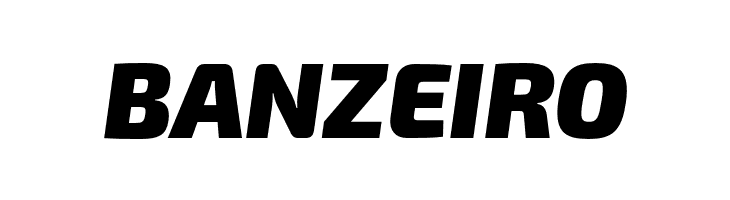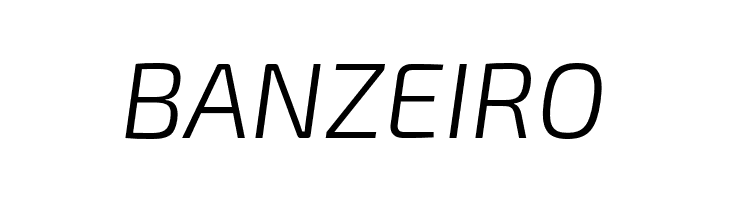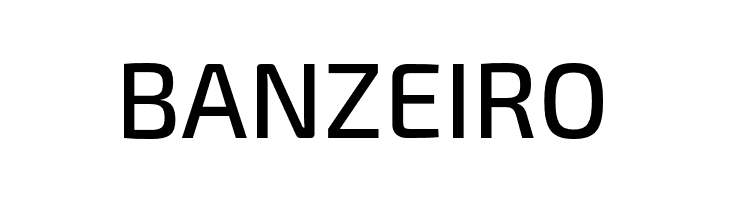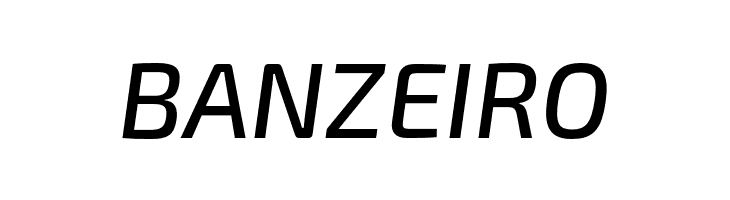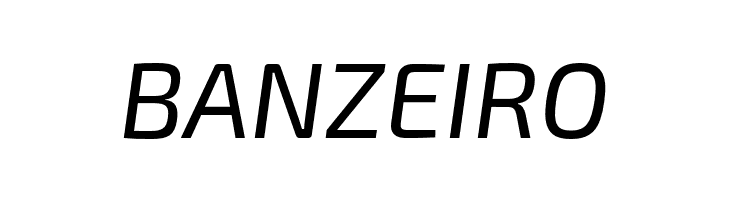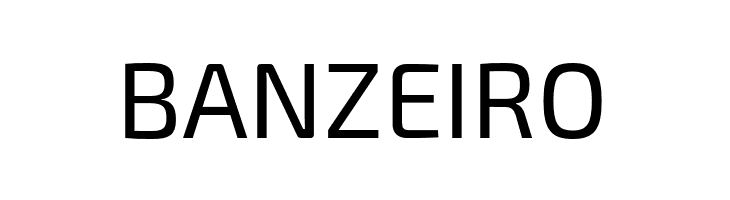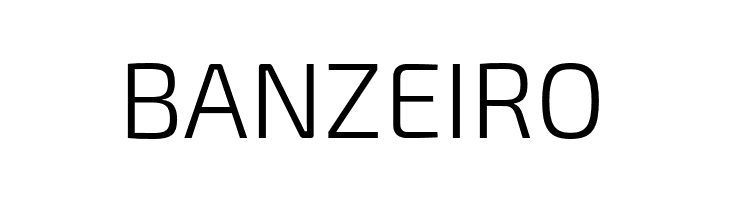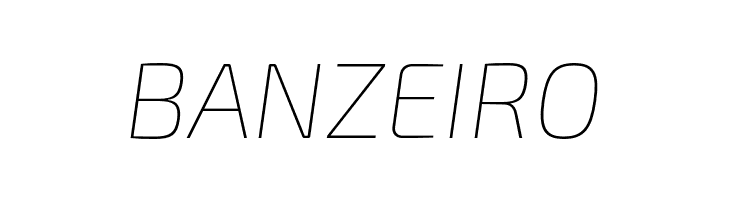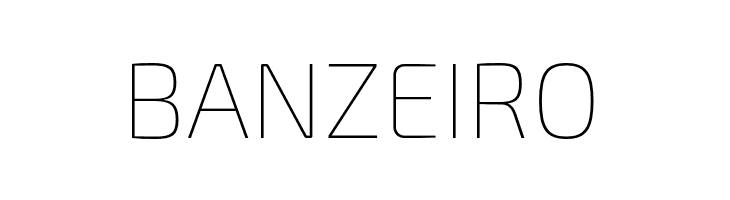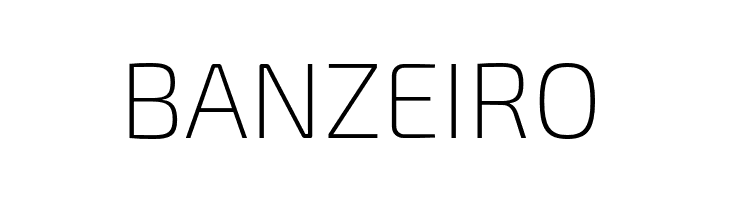
A sleek, modern sans-serif font with extra-light weight and italic style.
A modern, italicized font with a clean, geometric design.
A sleek, modern font with clean lines and geometric shapes.
A modern, light, and italic sans-serif font with a sleek and dynamic design.
A modern, geometric sans-serif font with a clean and minimalistic design.
A modern, italic sans-serif font with a sleek and dynamic style.
A modern, geometric sans-serif font with clean lines and balanced structure.
A modern, semi-bold italic font with a sleek and compact design.
A sleek, modern font with thin, clean lines and a minimalist aesthetic.
A sleek, thin, and italicized modern font with a minimalist design.
A modern, geometric font with clean lines and balanced proportions.
A bold, modern sans-serif font with geometric shapes.
A bold, italic font with a modern and dynamic style.
A bold, modern geometric sans-serif font with clean lines and a slightly condensed width.
A modern, bold, and italicized font with a sleek and dynamic design.
A bold, modern typeface with geometric influences and uniform stroke width.
A modern, bold, and italicized font with high contrast and a sleek appearance.
A sleek, modern font with clean lines and geometric structure.
A sleek, extra-light italic sans-serif font with a modern and dynamic style.
A modern, italic sans-serif font with clean lines and a dynamic appearance.
A modern, geometric sans-serif font with a clean and professional appearance.
A modern, light, and slightly italic sans-serif font with clean lines.
A modern, sleek sans-serif font with clean lines and geometric shapes.
A modern, italicized font with clean, geometric lines and consistent stroke width.
A modern, semi-bold font with a clean, geometric design.
A modern, semi-bold italic font with medium contrast and a sleek, dynamic style.
A modern, thin font with clean lines and a minimalist design.
A sleek, thin, italicized font with a modern and elegant design.
A bold, modern font with a strong geometric structure and uniform stroke width.
A sleek, modern font with clean lines and a geometric structure.
A sleek, modern, extra-light italic font with a dynamic and elegant style.
A futuristic and geometric font with clean lines and angular shapes.
A futuristic, angular font with bold, geometric shapes.
A bold, angular font with a futuristic, geometric design.